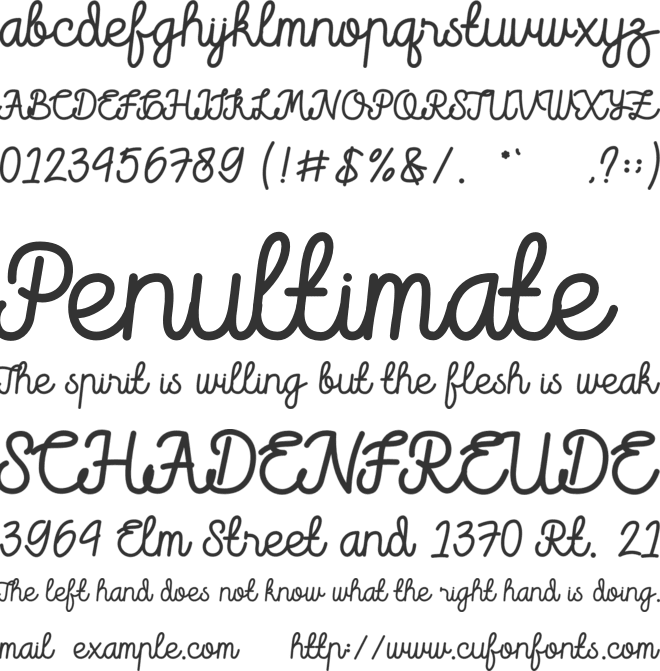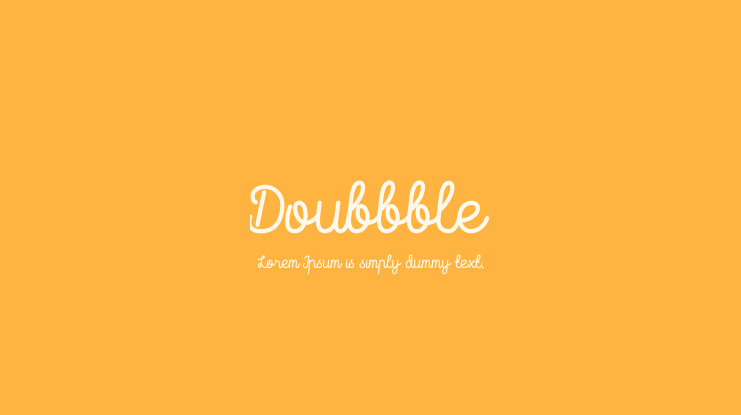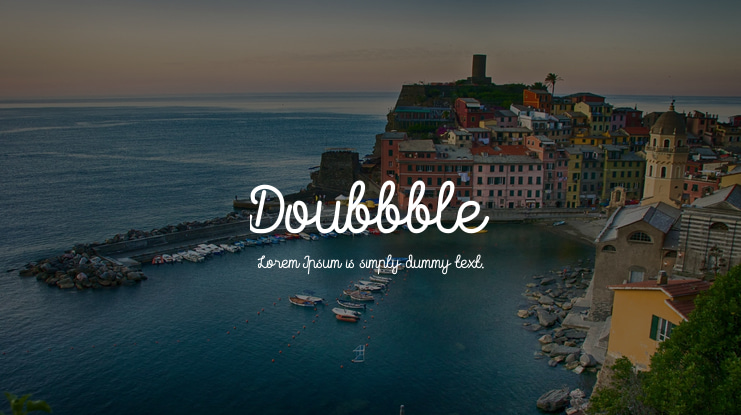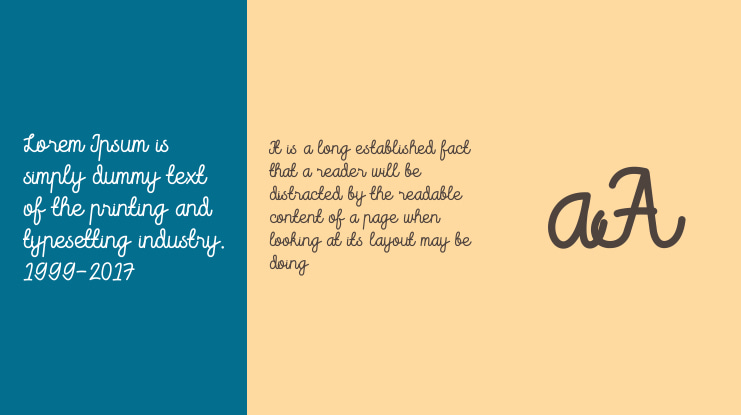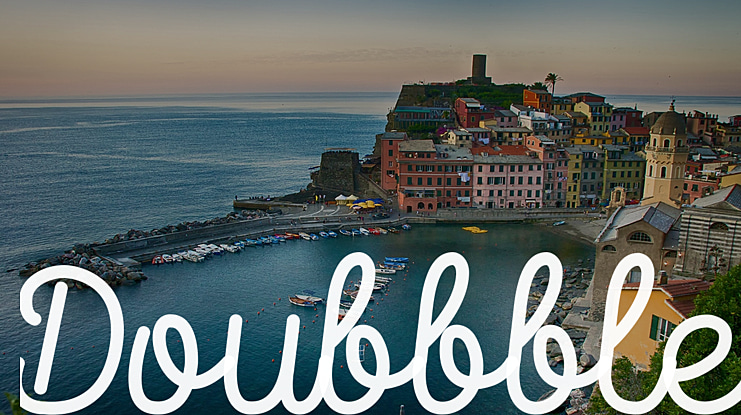
Doubbble Font
M Ansori Zakaria
Doubbble - monoline script font that is inspired by dribbble made with a medium thickness pen that will make your design look more beautiful and soft.
Double - will be perfect for magazines, business cards, invitations, packaging, tshirt, and all designs that require beautiful and soft elements.